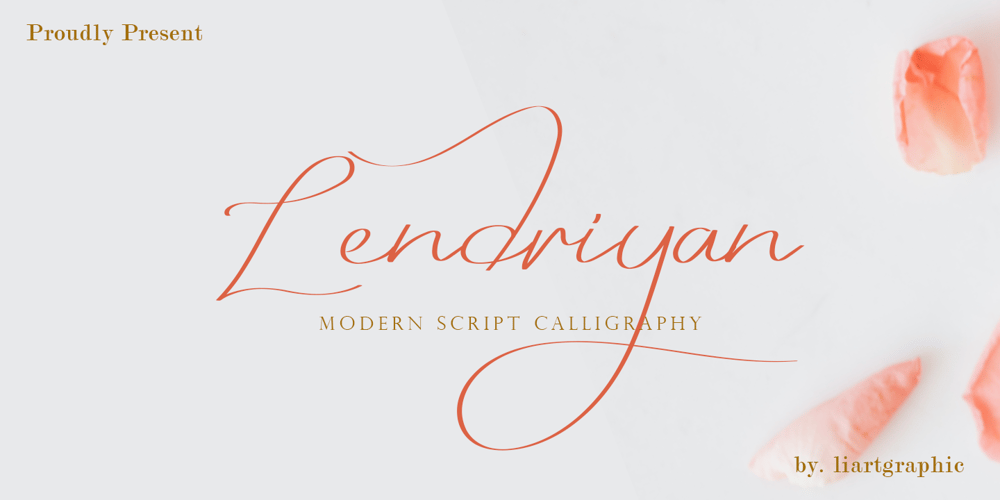
Lendriyan Font Family was designed by Ali Sifak Muftari and published by Liartgraphic. Lendriyan contains 1 styles and family package options. Lendriyan fonts, calligraphy and handwriten fonts. This font is very beautiful and charming with curves. With its uniqueness, this font can be used as a logo, title, script, leaflet, landing pages and others. You just like this font, thank you